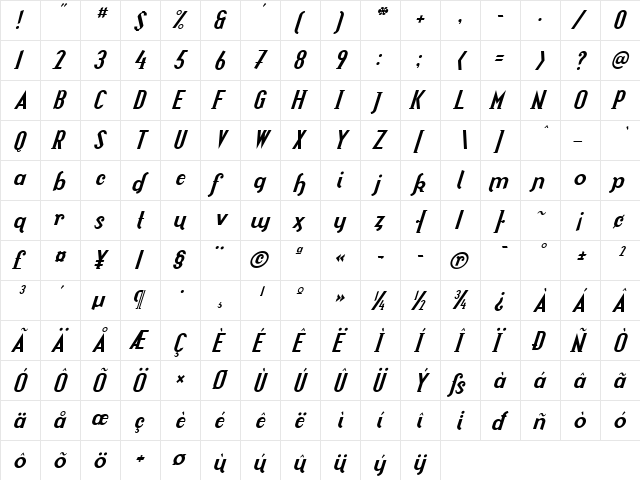
Locus Regular
Design Context for Locus Typeface
Locus takes a measured approach to typography — its balanced proportions and neutral character make it a reliable workhorse for both digital and print work.